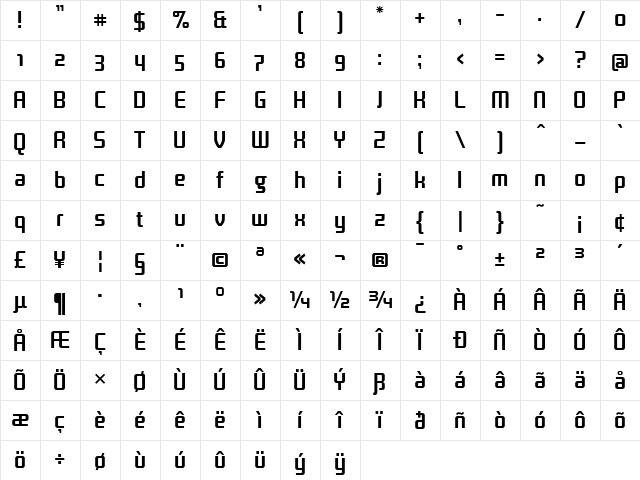
Complete Titan Bold glyph index. Displaying only characters natively supported by Titan Bold font.
Titan is a composed and adaptable typeface that performs quietly and consistently across a wide range of design contexts. Its bold stroke weight gives it real presence on the page.